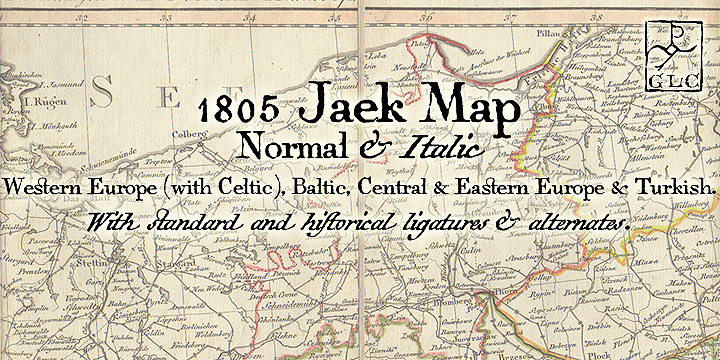
1805 Jaeck Map
1805 Jaeck Map is a historical font family. This typeface has two styles and was published by GLC Foundry.
This font is mainly inspired from the engraved characters of a German Map depicting Germany
This font is mainly inspired from the engraved characters of a German Map depicting Germany’s roads and parts of surrounding lands, edited in Berlin probably in the end of 1700’s. The engraver was Carl Jäck or Jaek (1763-1808). The Map was baught by the French napoleonic general Louis Pierre Delosme (1768-1828)probably during the Napolenic campaign against Germany, circa 1805 or at least 1806, his sole staying in Germany.
The font (with two styles, Normal and Italic)is containing standard ligatures and a few alternative characters. It is a “small eye” or “Small x-eight” font, as the Maps’ characters are most often very small (some Italic lower cases of the map are 1mm hight, upper cases 2mm)
The standard English characters set is completed with accented or specific characters for Western(Including Celtic)and Central European, Baltic, Eastern Europe and Turkish languages.